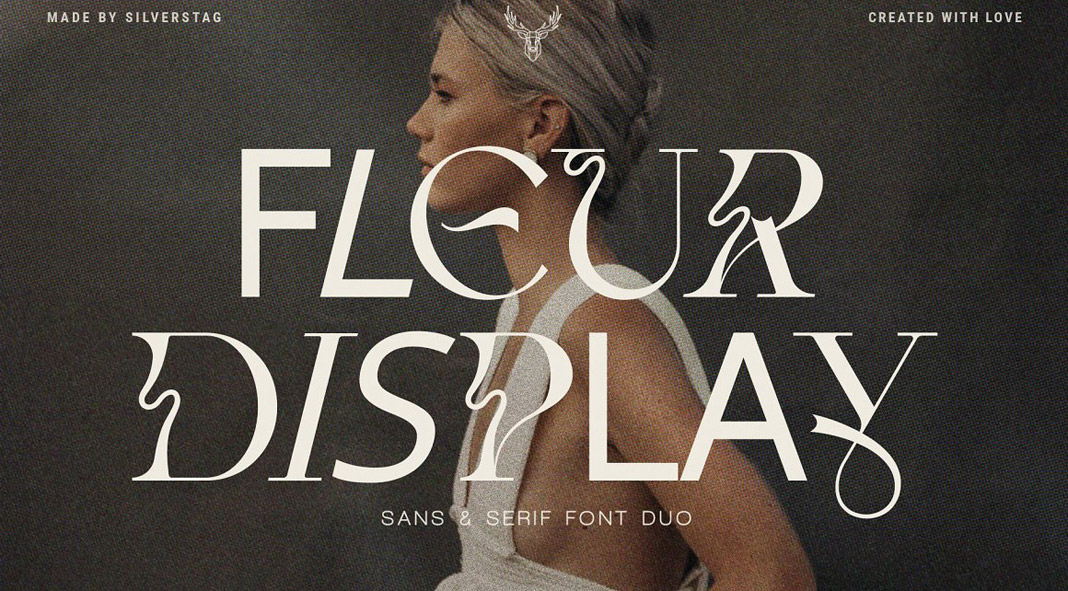
Take a look at Fleur Display, an extraordinary font duo created for today’s typographic demands.
Are you looking for an extraordinary display font that offers a playful yet elegant style? If so, this might be it. The Fleur Display font duo by SilverStag combines classic influences with modern typography. The duo consists of a regular and outline version. Actually, Fleur Display mixes sans and serif options with regular, italic, outlined, and outlined italic options. It’s simply an all-in-one typeface with an amazing look!